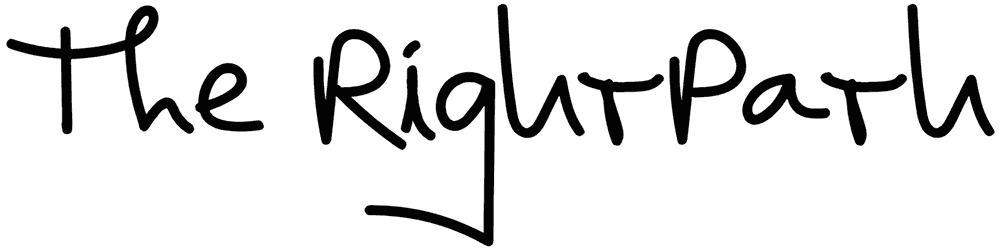
The RightPath Font
Completely safe to state that nothing could raise your design better than this script font named The RightPath, naturally slicing them. This fast handwritten font with a railway of A to Z symbols would push you to satisfy a craving.
The RightPath is a cute and simple lettered handwritten font. It can be used for all chalkboard quotes or teaching material! Its authentic look will add a personal and realistic feel to your designs.